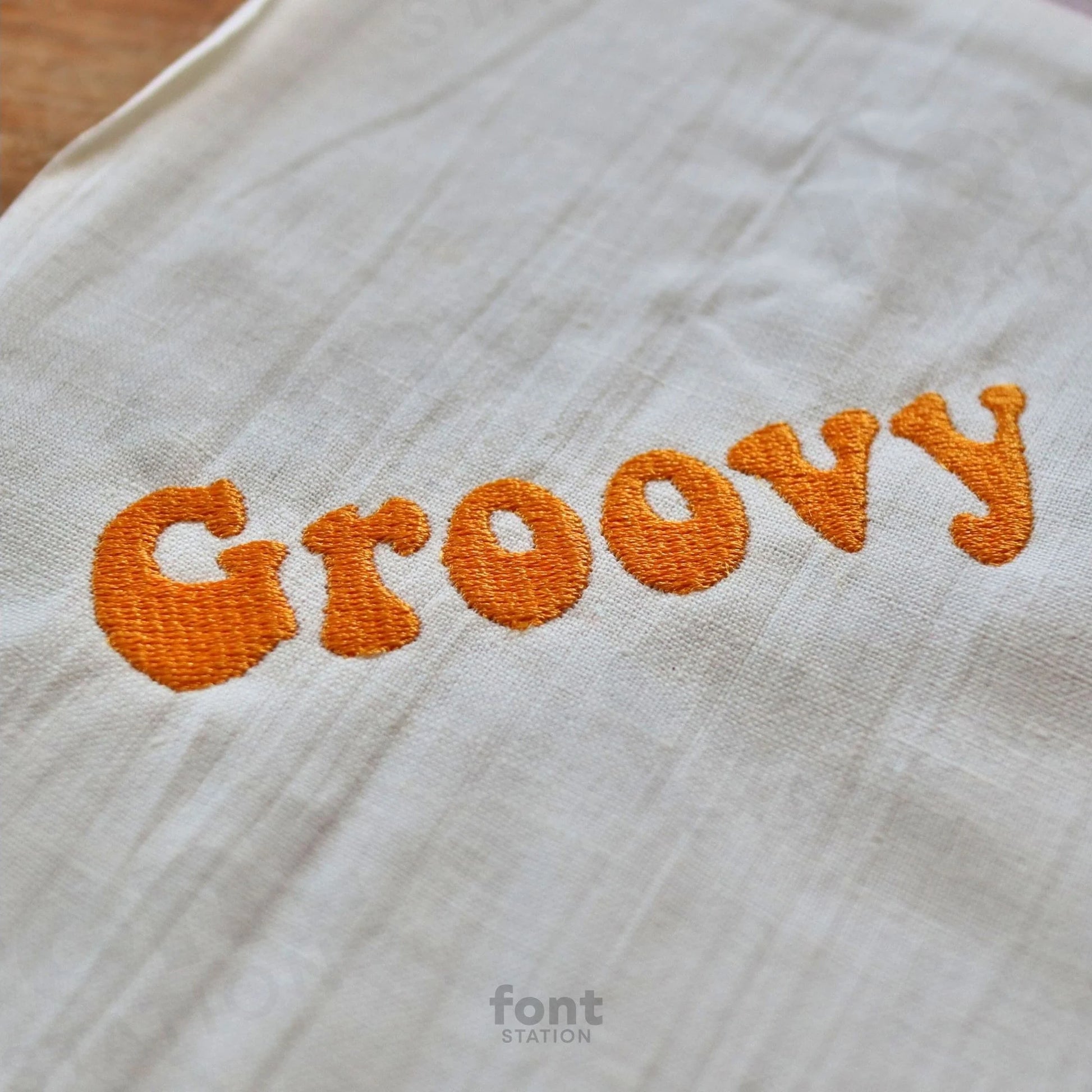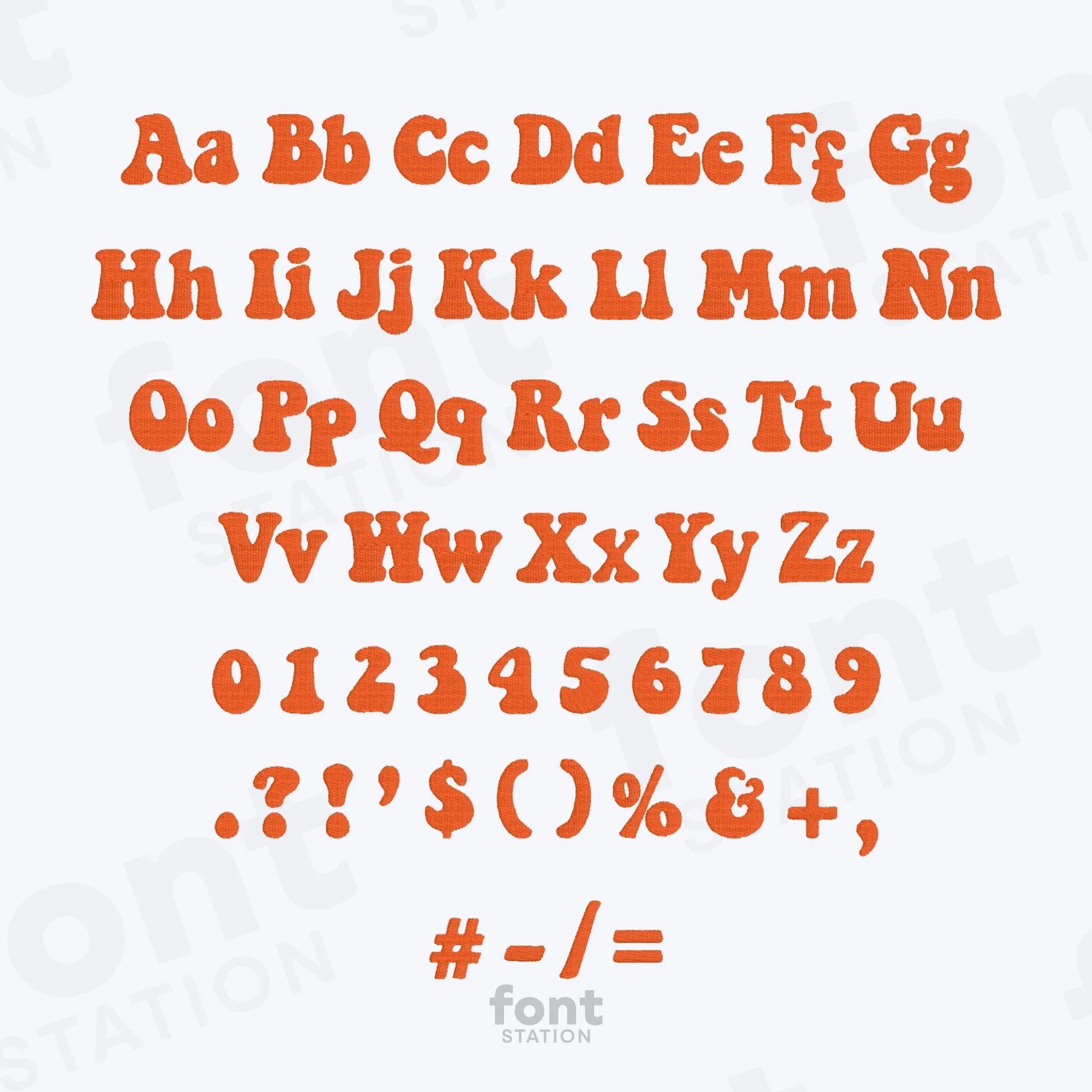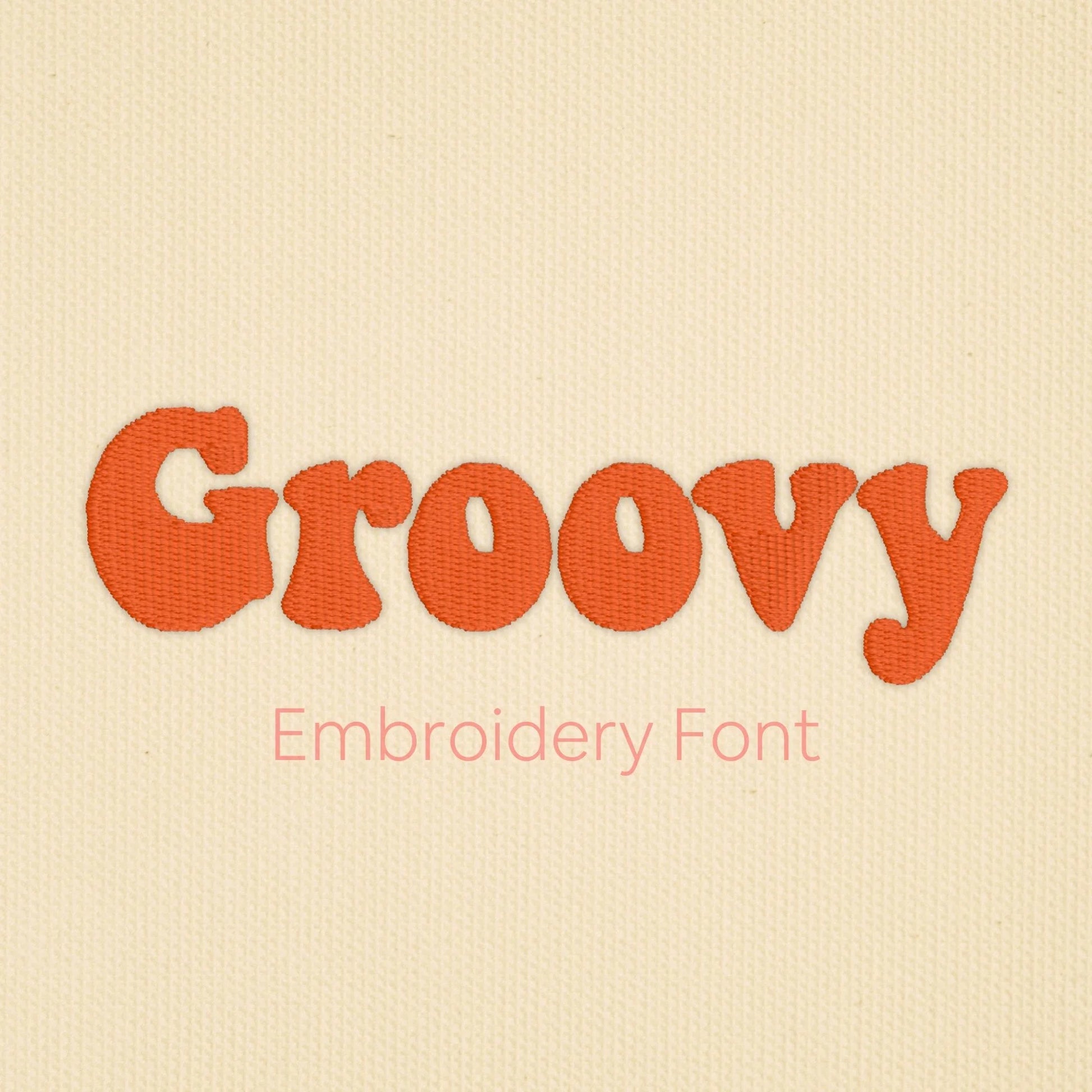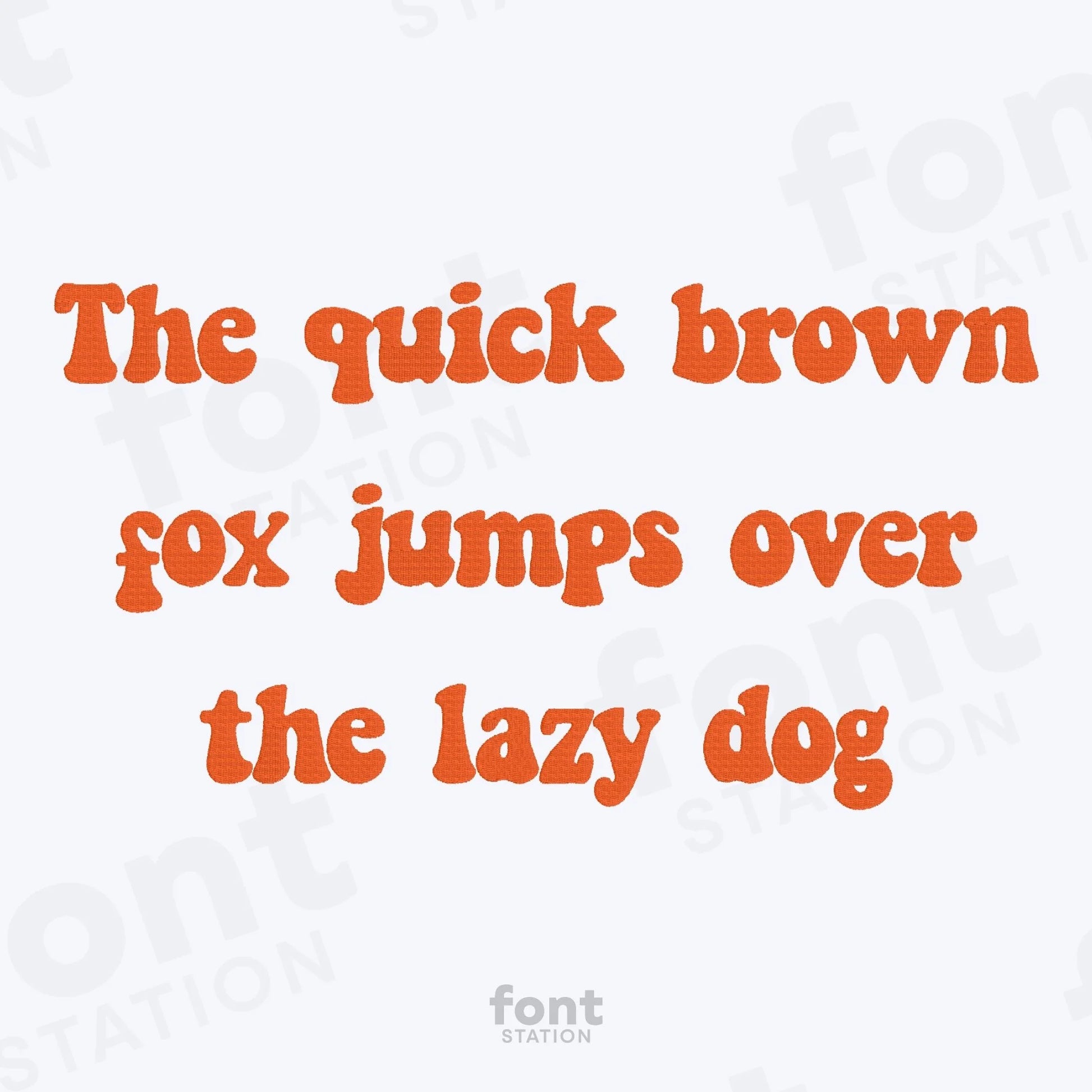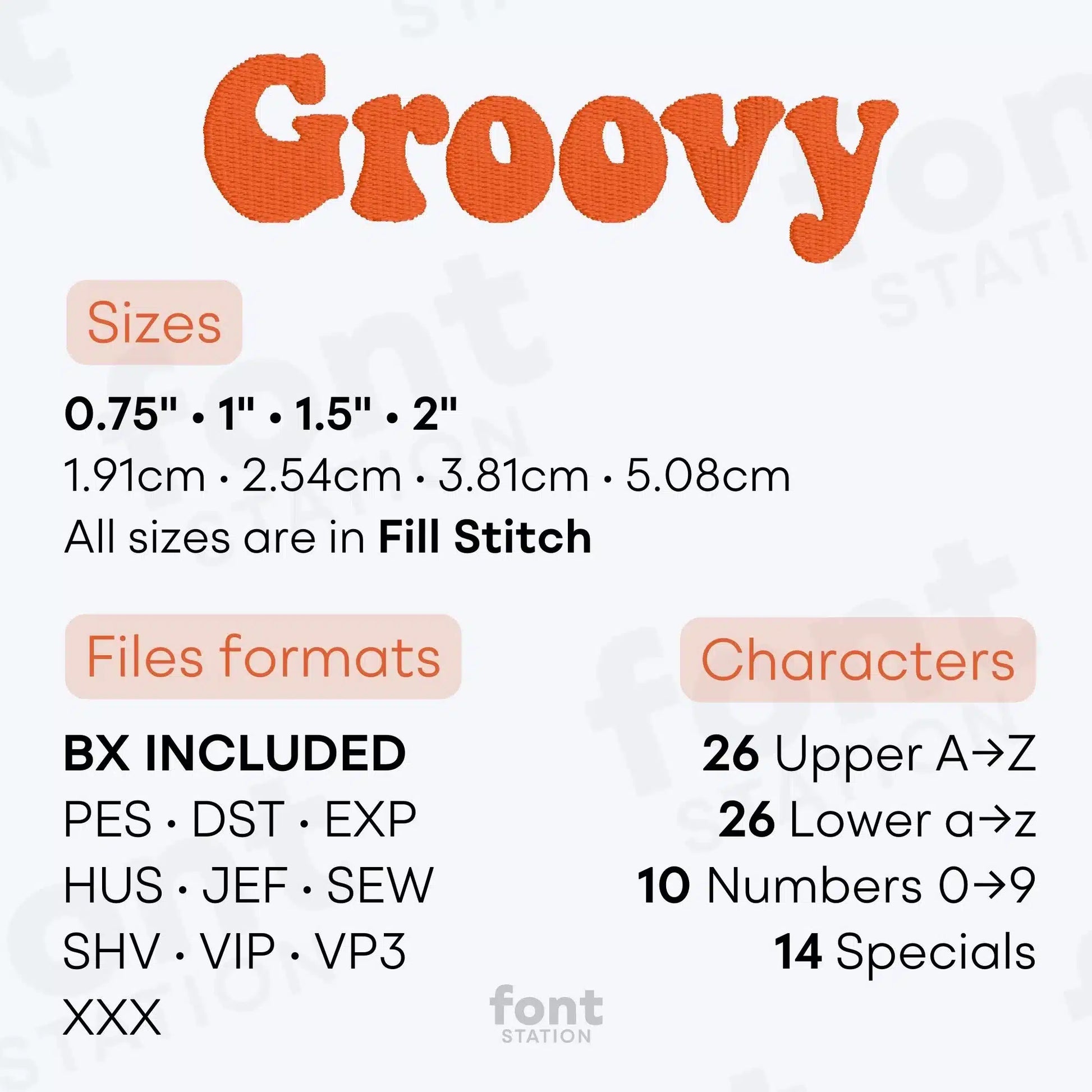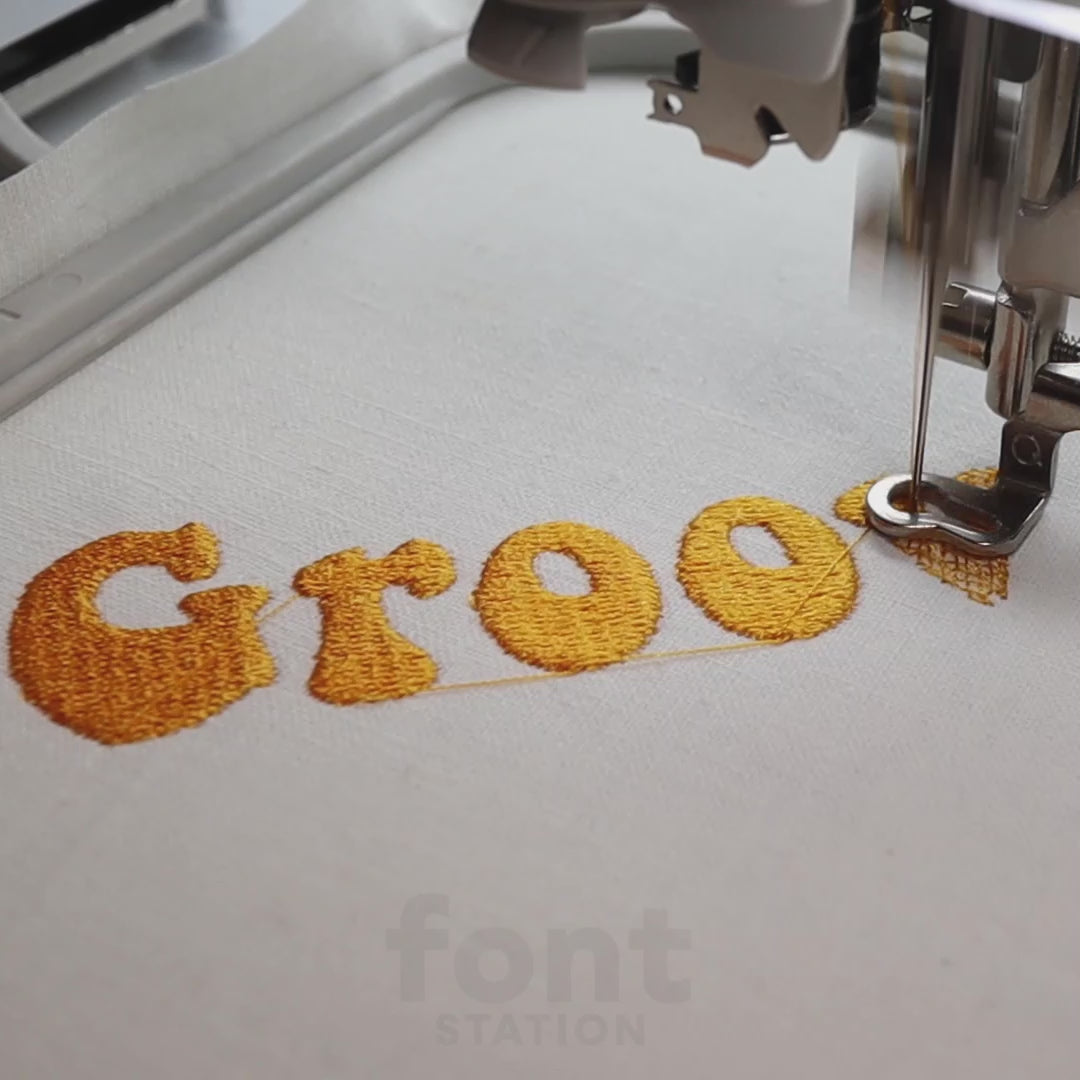
Groovy Embroidery Font
Our Groovy embroidery font is the perfect retro addition to your stitch collection - machine-ready, easy to use, and packed with supported formats.
About the Groovy Embroidery Font
Bring a funky retro vibe to your projects with our Groovy embroidery font!
Make your embroidery designs stand out with our bold and playful Groovy embroidery font. Professionally digitized for clean stitching on most fabrics, this retro-style alphabet adds a fun, nostalgic touch to any project. Customers love its funky 70s-inspired charm, and we can’t wait to see how you use it!
Cute embroidery font, but I felt like it didn’t fill in the letters well. It needed more stitch density.
Super fun design. Love it
Such a fun font! Stitched perfectly.
This font stitched out beautifully!
Stitched out beautifully! Will use often.
This font out beautifully!! Just what I wanted!
Stitches so nicley and I love that there were multiple sizes!
This font stitched out beautiful.
Stitches out great, happy to find this gone.
The font stitched out perfectly!
Lovely font, lovely stitching & just what I needed!
Absolutely perfect stitch out from this font was exactly what I needed for my project.
The design stitched beautifully! I love love love how it came out.
I love this font. It stitched out perfectly!